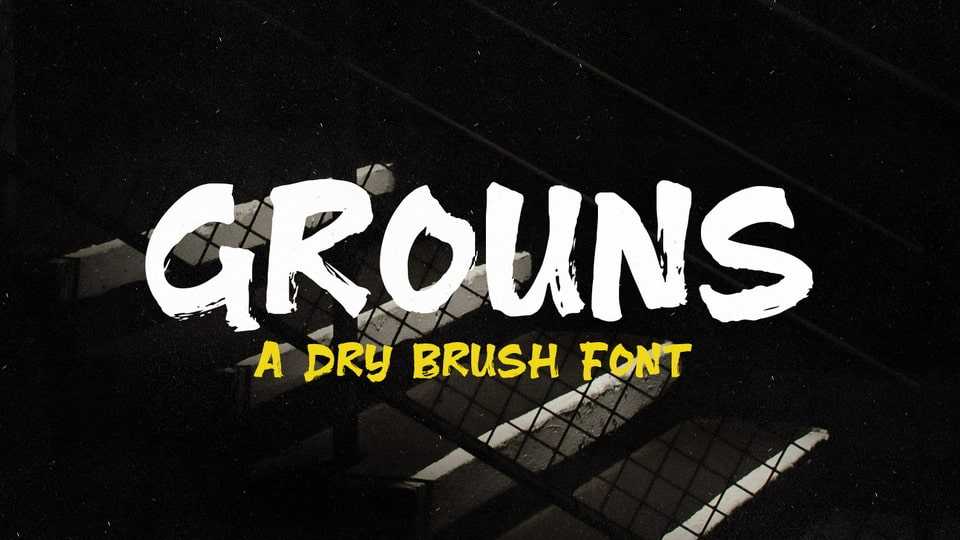
Download Grouns font, a dry brush typeface with spontaneous salty movements. Grouns font has a bold and assertive personality so that your design looks more solid and pro.
Designer: Dexsar Harry Anugrah